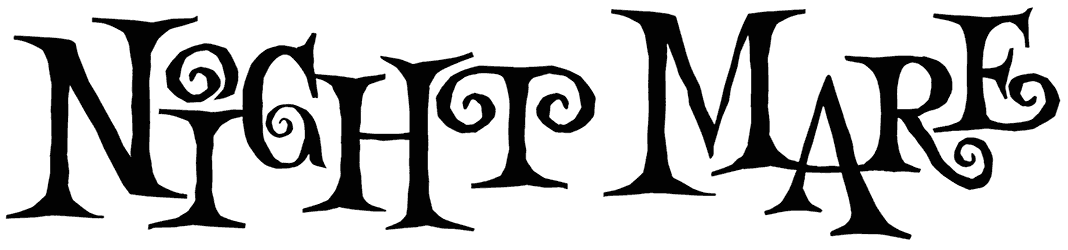
Night Mare Font
Night Mare is the result of adding a playful touch to a formal serif font that can lead to a sense of innovation, momentum, drama, and fun.
Since its characters come with curved edges and oblique style, this whimsical font can give an artistic touch to your artwork, such as posters, logos, brochures, gift cards, and Thanksgiving cards. So it is better to overlook that lack of lowercase letters and make charming outcomes out of it.